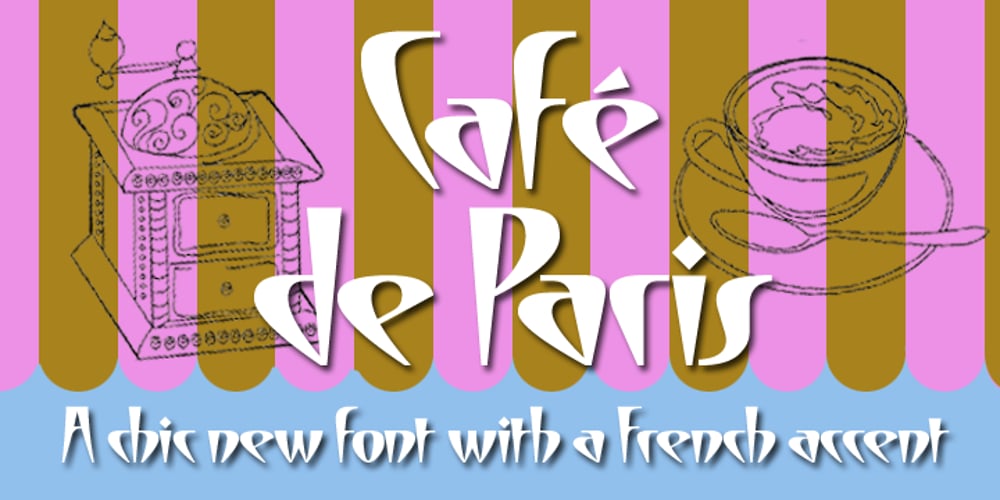
Cafe De Paris Font Family was designed by published by Studio K. Cafe De Paris contains 4 styles and family package options. Café de Paris is, clearly, inspired by all things French, especially the quirky typefaces that adorn French shopfronts from cafes to charcuteries and bistros to boulangeries. My intention was a fresh, crisp, modern take on a classic theme, with just a soupcon of Art Nouveau, which is characteristic of so much of French typography (See also Studio K’s Paris Metro font) C’est chic – n’est-ce pas?